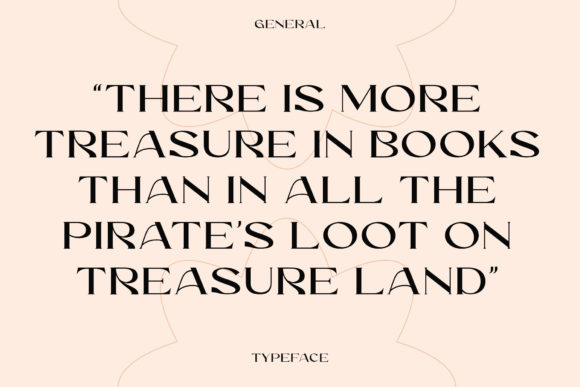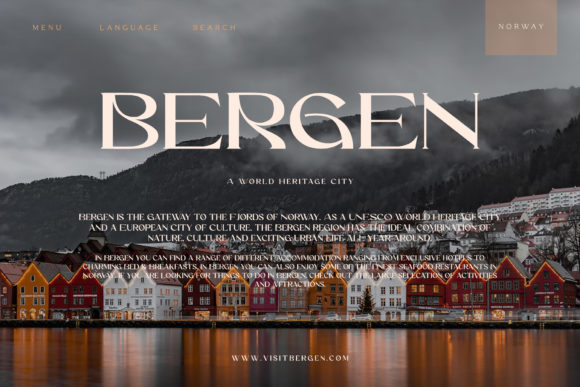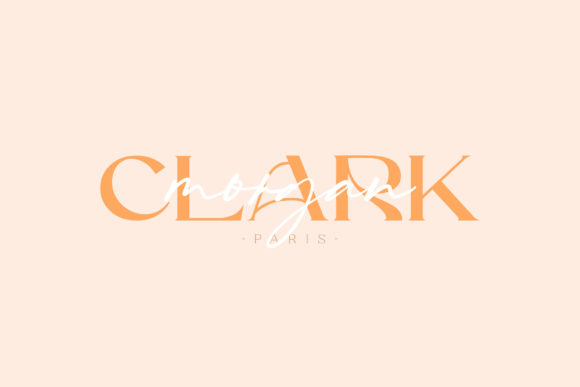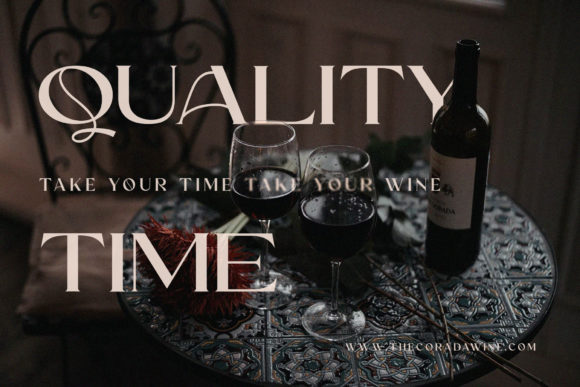
Introducing General Font: The Ultimate Serif Choice for Stunning Designs
In the world of typography, fonts play a crucial role in making or breaking a design. A well-chosen font can elevate your creation, making it stand out from the crowd, while a poorly chosen one can lead to a lackluster visual experience. For designers and crafters looking for a unique, modern, and classic serif font, General Font is an excellent choice. This versatile font beautifully combines serif and slab serif characters, making it perfect for display or product design.
The Unique Features of General Font
General Font boasts a distinctive design that sets it apart from other serif fonts. Its unique blend of classic and modern elements makes it an excellent choice for designers seeking a sophisticated look. The font’s serif and slab serif characters work harmoniously to create a visually appealing contrast, adding depth and character to any design.
Why Choose General Font?
So, what makes General Font an attractive option for designers and crafters? Here are a few compelling reasons:
- Versatility: General Font is suitable for a wide range of design applications, from display and product design to branding and advertising.
- Readability: The font’s clear and legible design ensures that your message is conveyed effectively, making it perfect for body text and headlines.
- Uniqueness: General Font’s distinctive blend of serif and slab serif characters sets it apart from more traditional serif fonts, giving your design a fresh and modern look.
- Elegance: The font’s classic elements add a touch of sophistication, making it ideal for luxury brands, high-end products, and premium services.
Using General Font in Your Design
General Font can be used in a variety of design applications, including:
- Display Design: Use General Font to create stunning headlines, titles, and captions that grab attention and make a lasting impression.
- Product Design: Add a touch of elegance to your product packaging, labels, and branding materials with General Font.
- Branding and Advertising: Use General Font to create a consistent visual identity for your brand, making it easily recognizable across different platforms.
Tips for Getting the Most Out of General Font
To make the most of General Font, consider the following tips:
- Experiment with font sizes: General Font looks great in a range of font sizes, from large display fonts to smaller body text.
- Play with font colors: Try using different font colors to add contrast and visual interest to your design.
- Mix and match font styles: Combine General Font with other fonts to create a unique and visually appealing typography scheme.
In conclusion, General Font is an exceptional serif font that offers a unique blend of classic and modern elements. Its versatility, readability, and elegance make it an excellent choice for designers and crafters looking to create stunning designs. Whether you’re working on a display design, product design, or branding project, General Font is sure to impress. So why wait? Give General Font a try today and take your design to the next level!